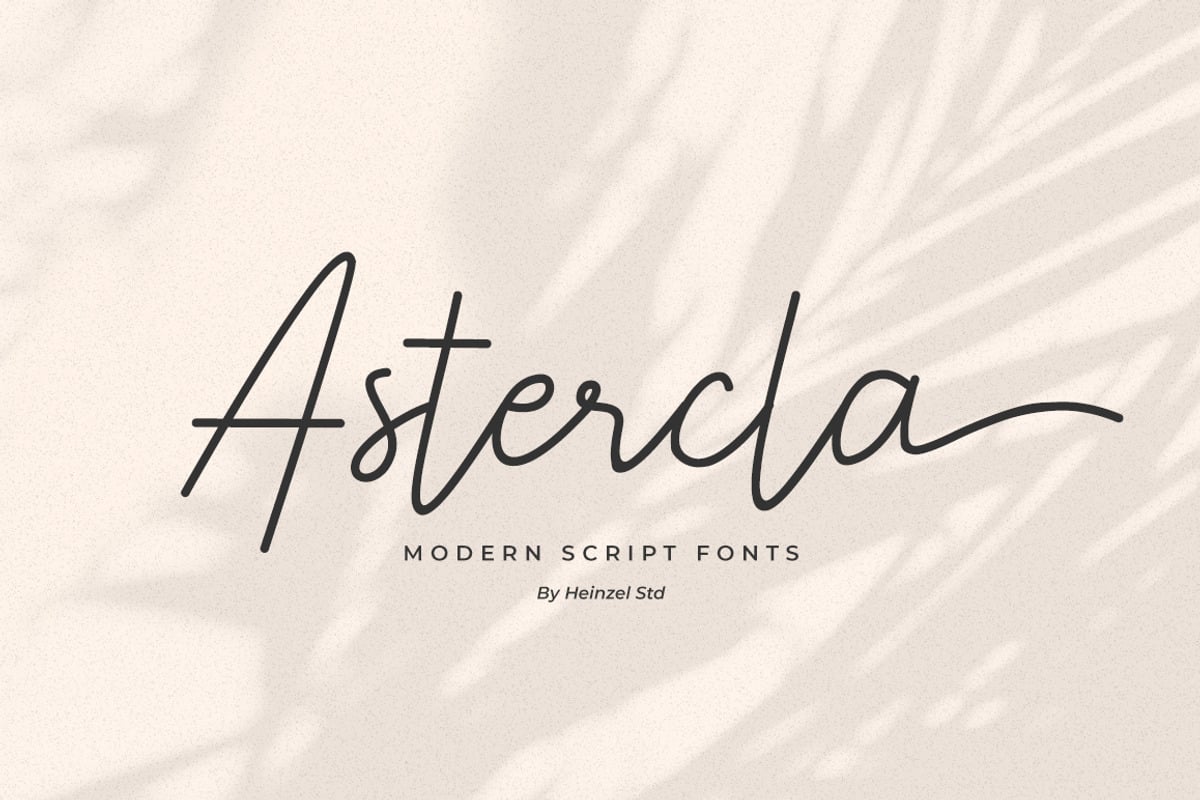
Astercla Modern Script Font
Elegant, natural, and effortlessly stylish — Astercla is the modern script font your next project needs.
Astercla is a fresh, contemporary handwritten script designed to bring warmth and sophistication to any creative work. Its flowing letterforms strike the perfect balance between polished and personal, making it ideal for projects that call for a handcrafted touch.
Astercla works beautifully across a wide range of applications, including:
- Photography and watermarks
- Social media posts and advertisements
- Logos and branding
- Invitations and wedding designs
- Product labels and packaging
- Stationery and special events
The font includes ligatures, alternates, and multilingual support, giving you creative flexibility across a variety of languages and design contexts.
- Ligatures & Alternates
- Multilingual Support